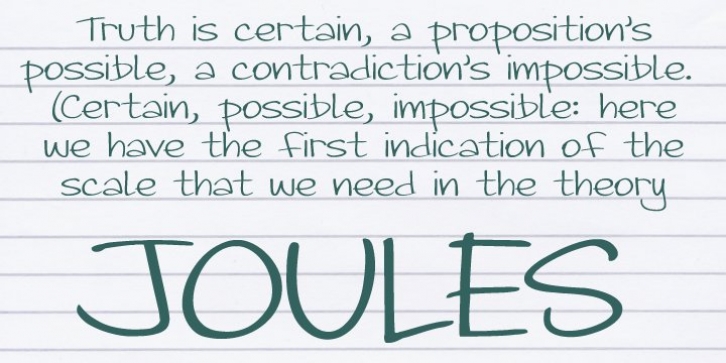
Joules was designed by Alec Julien and published by Haiku Monkey. Joules contains 5 styles and family package options.
Joules is a handwriting font with verve.
Use liberally, wherever an informal, funky font is called for.